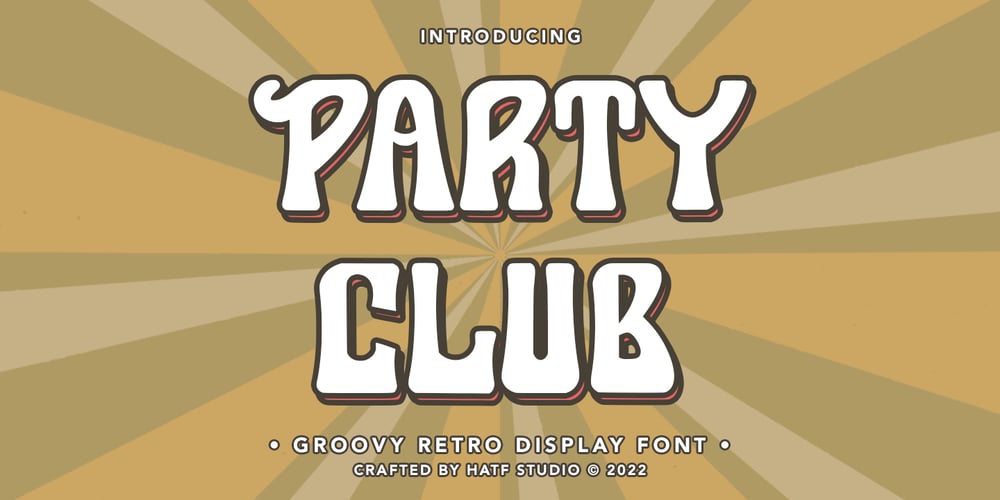
Party Club Font Family was designed by Asep Rendi and published by Hatftype. Party Club contains 1 styles and family package options. Is a font with groovy retro style. With distinctive handwritten characters perfect for branding projects, logos, merchandise designs, media posts, advertisements, product packaging, product designs, labels, photography, watermarks, invitations, stationery, and any project who need handwritten dishes.Feature :* Symbol* Number* Punctuation* Multilingual support* Support in Mac and Windows OS* Support in design application (photoshop, illustrator, and more)I really hope you enjoy it.* Uppercase